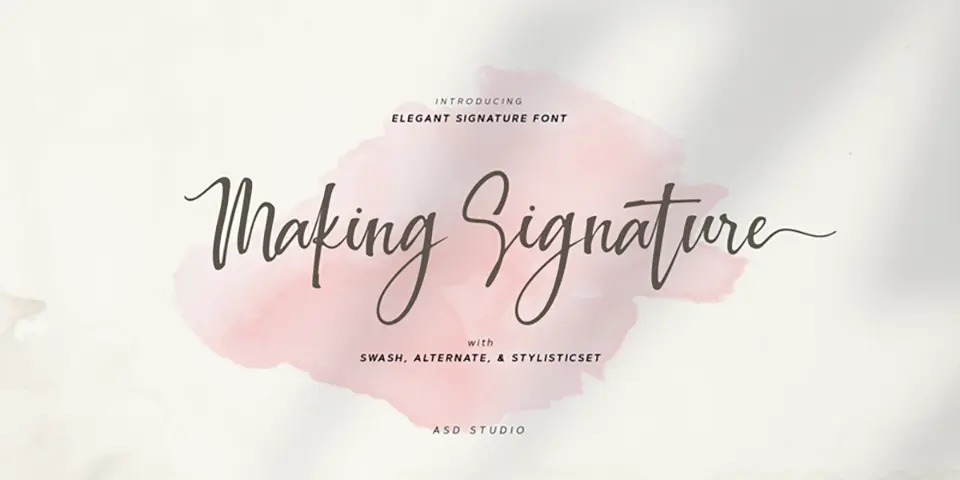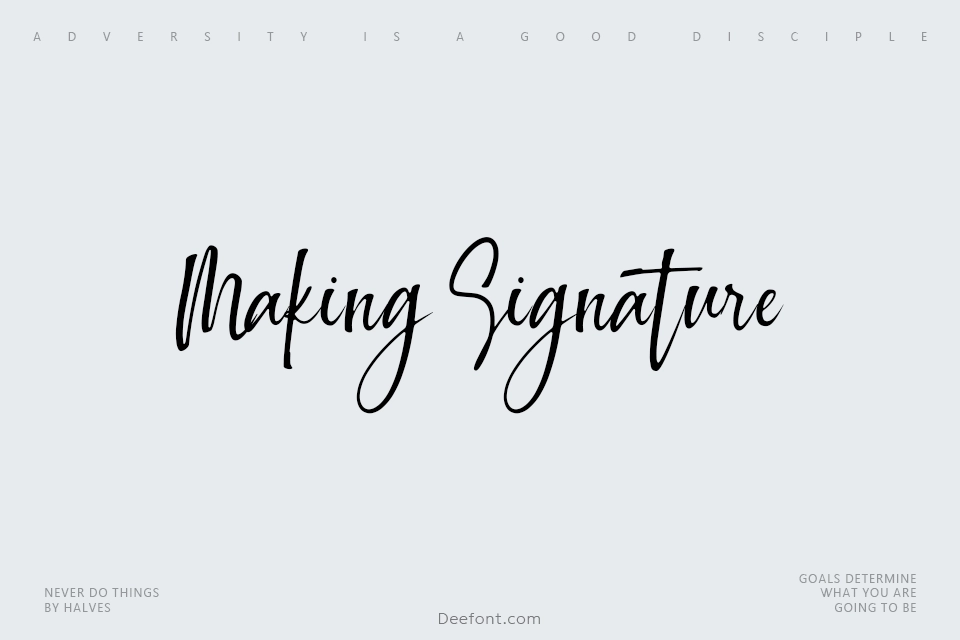
Making Signature Font
Making Signature is an elegant script font with fluid, handwritten qualities and dynamic letterforms. This versatile typeface features personal, artistic elements ideal for invitations, branding, logos, and creative design projects. The font connects letters gracefully with a natural flow, offering a distinctive touch to any creative application requiring authentic, personalized aesthetics.